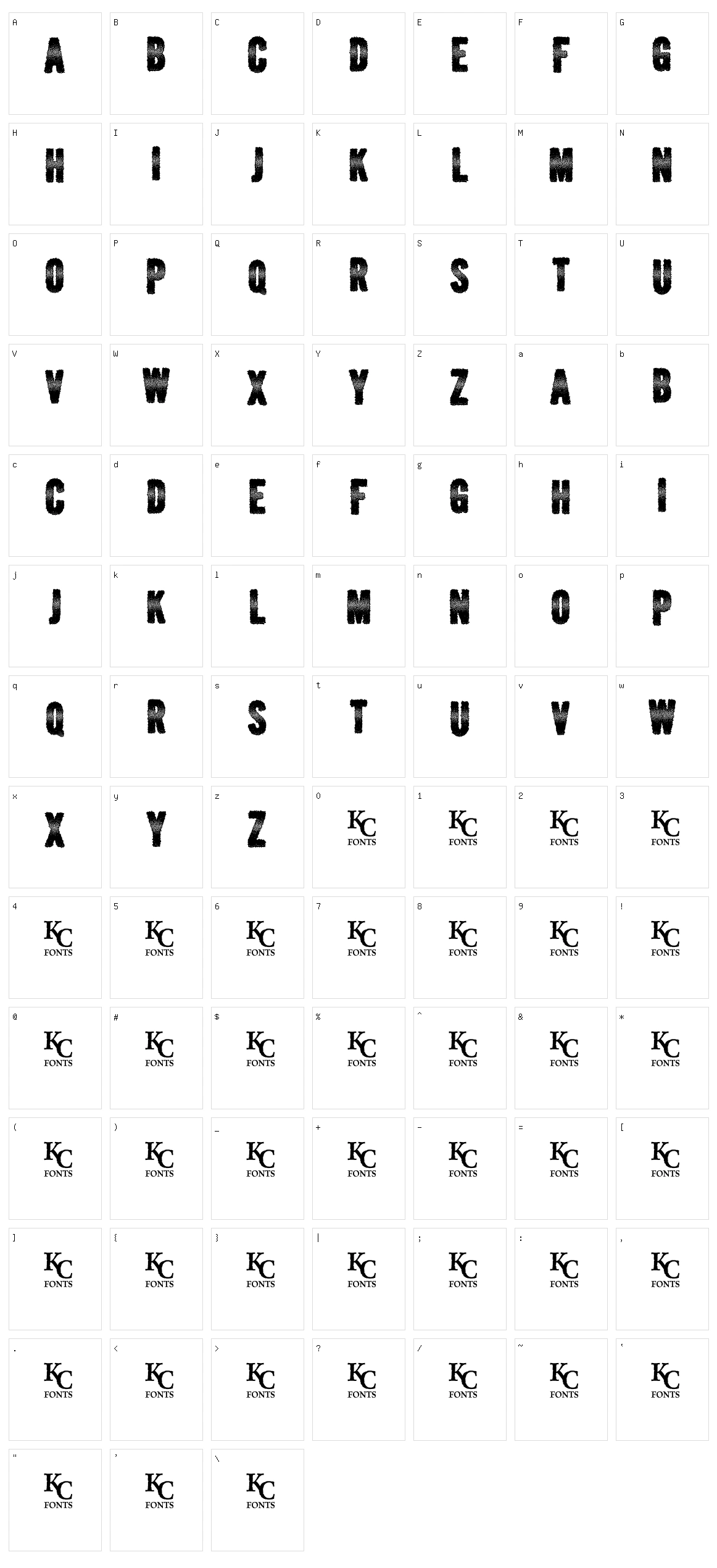
The free font Verbal Diarrhea is carefully designed by KC Fonts, showcasing a thoughtful balance of creativity and usability and falls under the Eroded font style. When you download the ZIP file, it contains only 440.64 KB of font files, making it lightweight and quick to download. Please review the license details below to understand permitted usage and distribution rights. If license information is not available, we recommend using this font for personal projects only or contacting the author directly for commercial usage permissions.